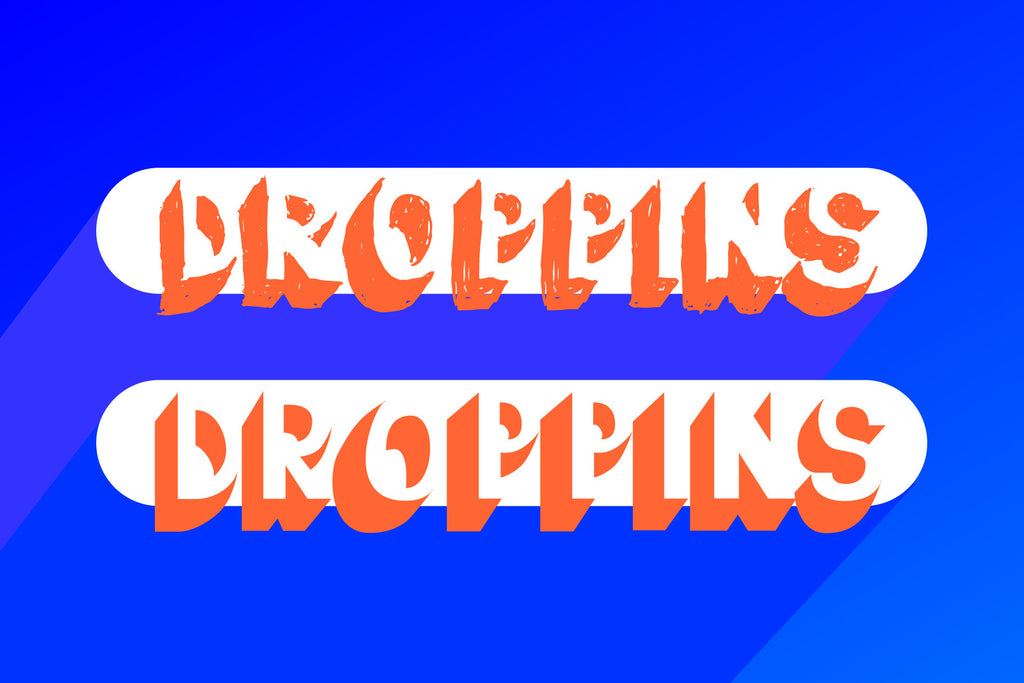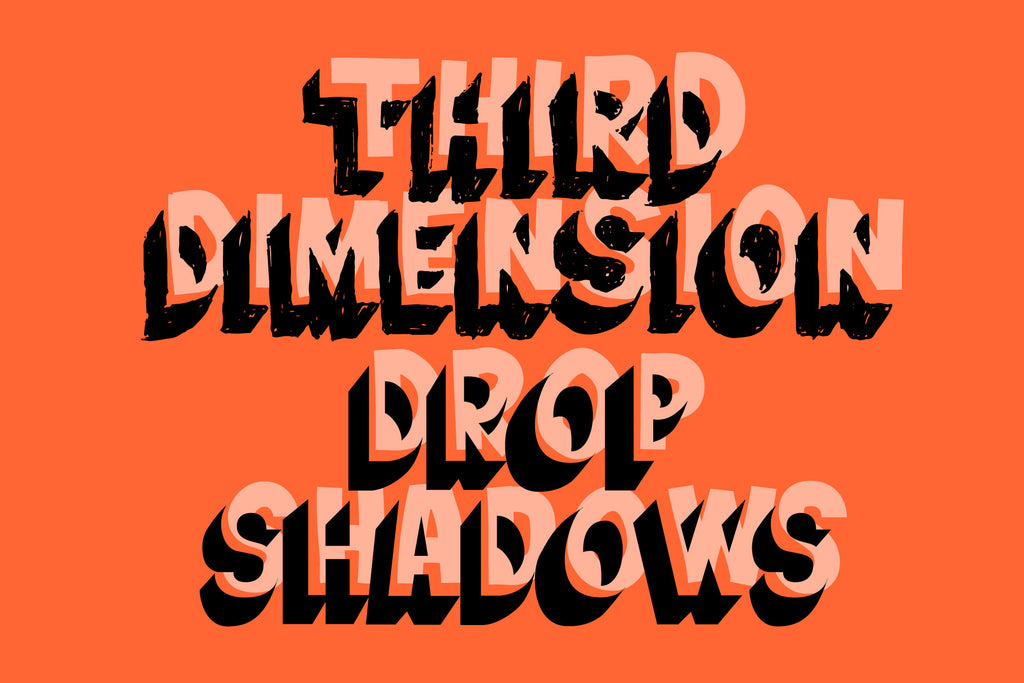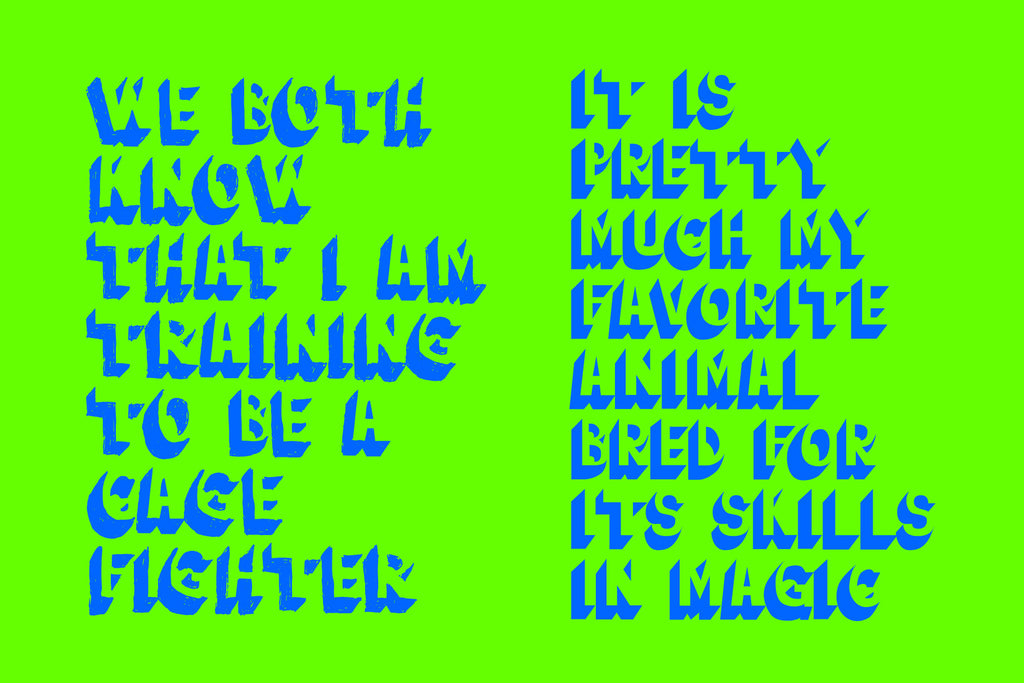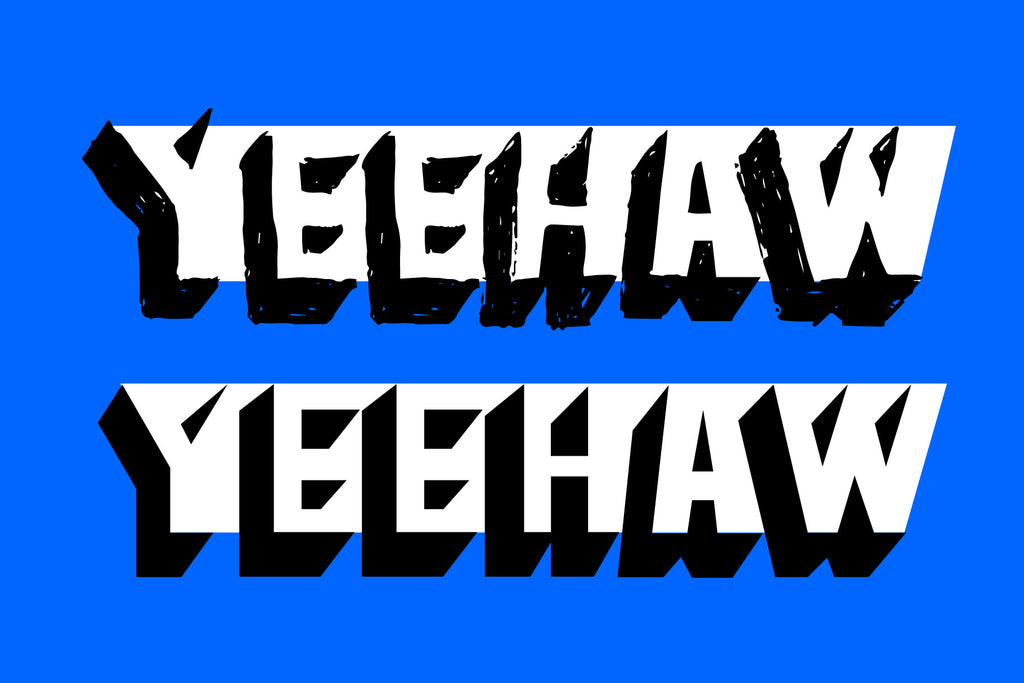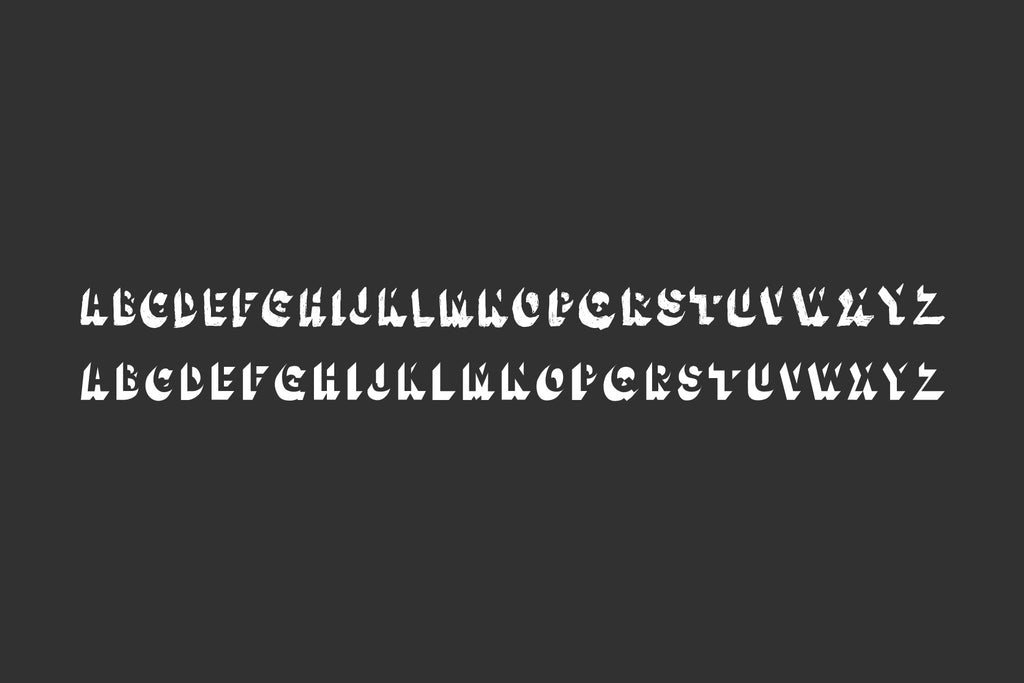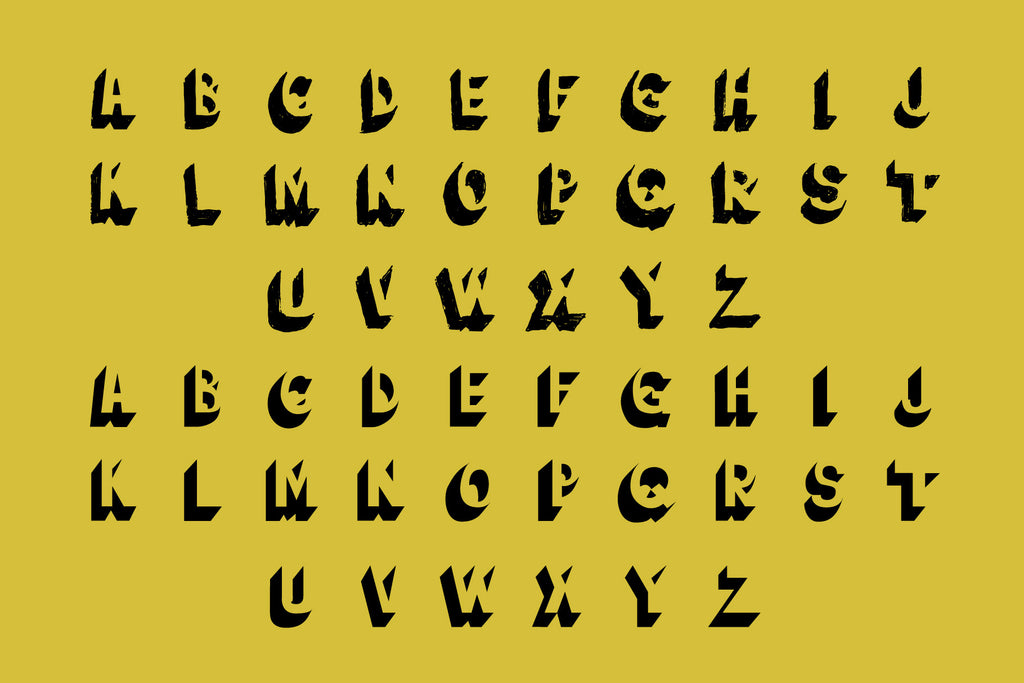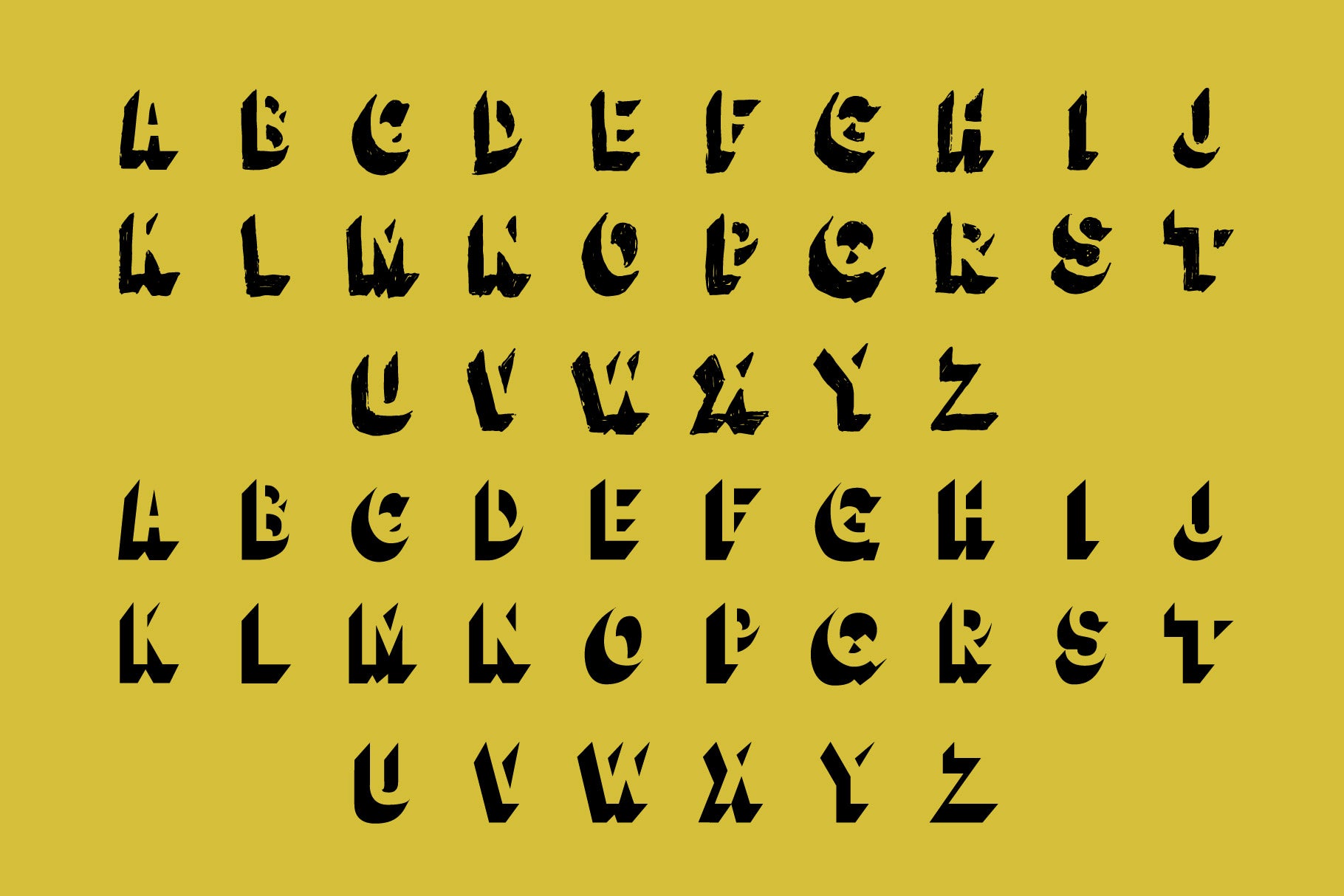
Droppins Typeface
Droppin’s is a hand-drawn drop-shadow–only typeface built for bold, graphic statements. The uppercase characters are loose and sketchy, retaining raw hand-rendered energy, while the lowercase characters were intentionally rebuilt with hard, clean edges for contrast and control. The result is a dynamic mix of expressive imperfection and sharp structure, giving designers a playful but deliberate shadow system that feels dimensional without relying on fills. Ideal for posters, headlines, merch, and punchy typographic moments.